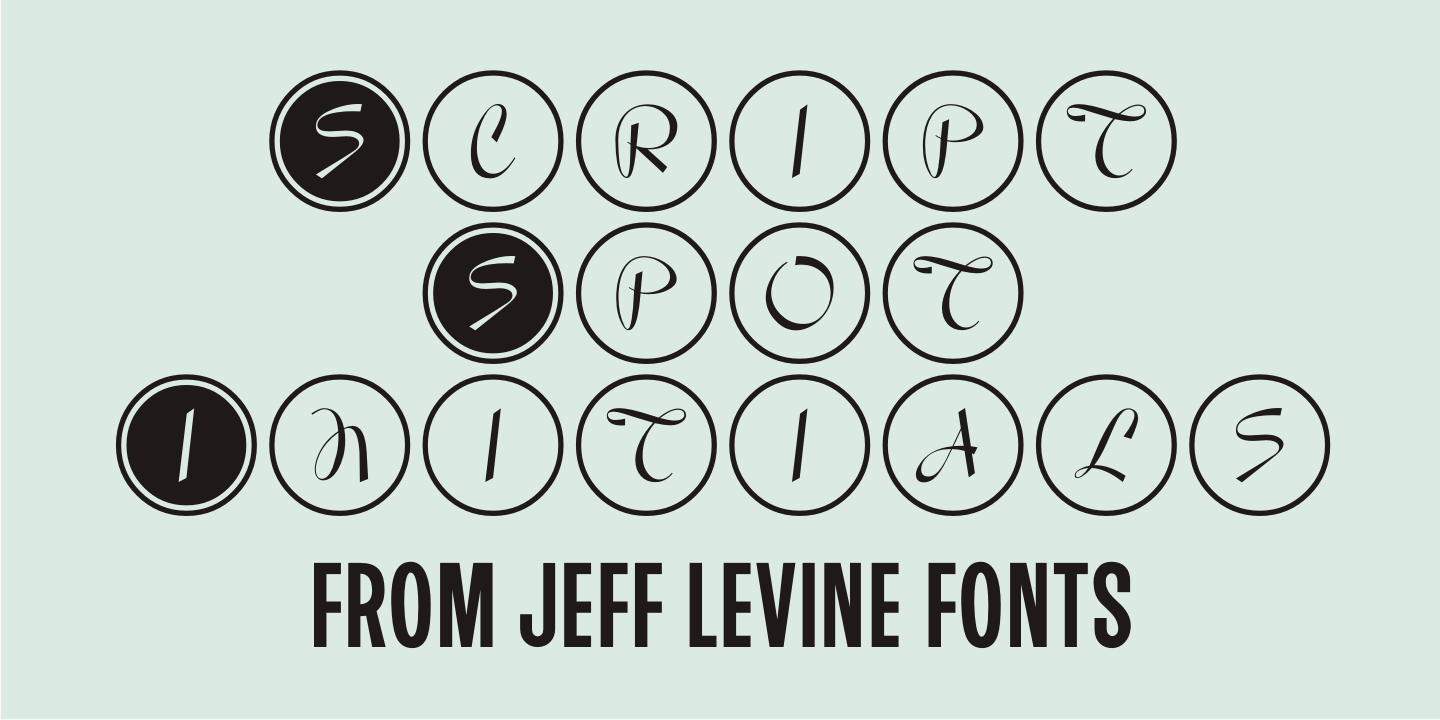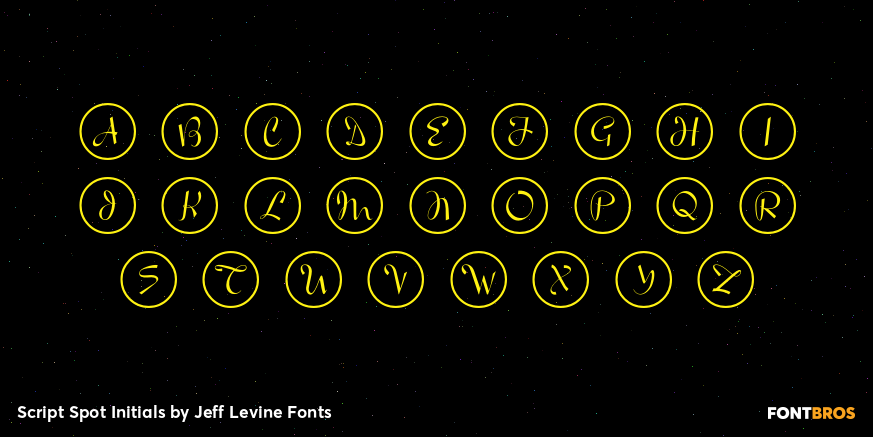
Script Spot Initials
Amidst the pages of the 1946 foreign-printed '100 Alphabets Publicitaires' ('100 Advertising Alphabets') was an example of a beautiful vertical script type design with a somewhat calligraphic look.
This became the work model for Script Spot Initials JNL.